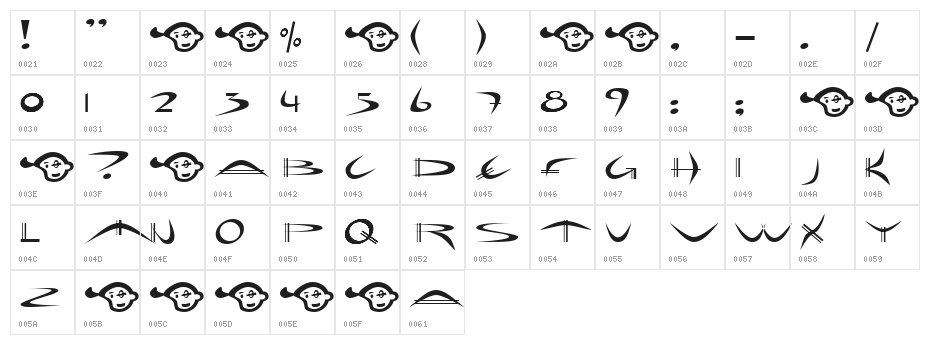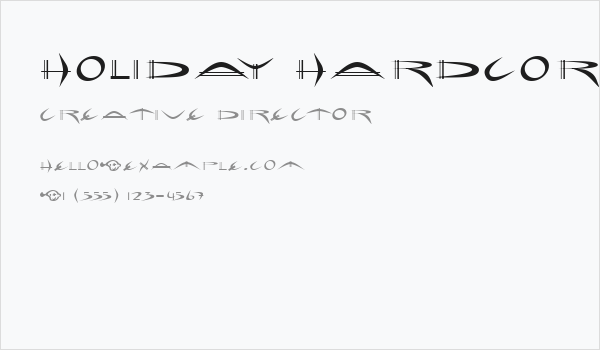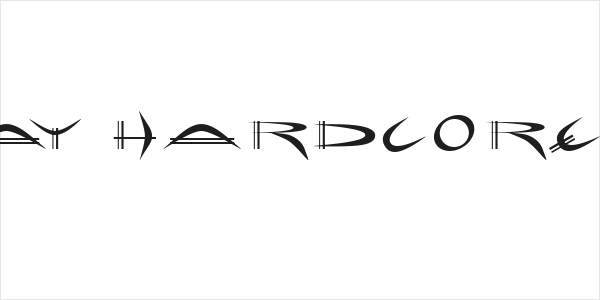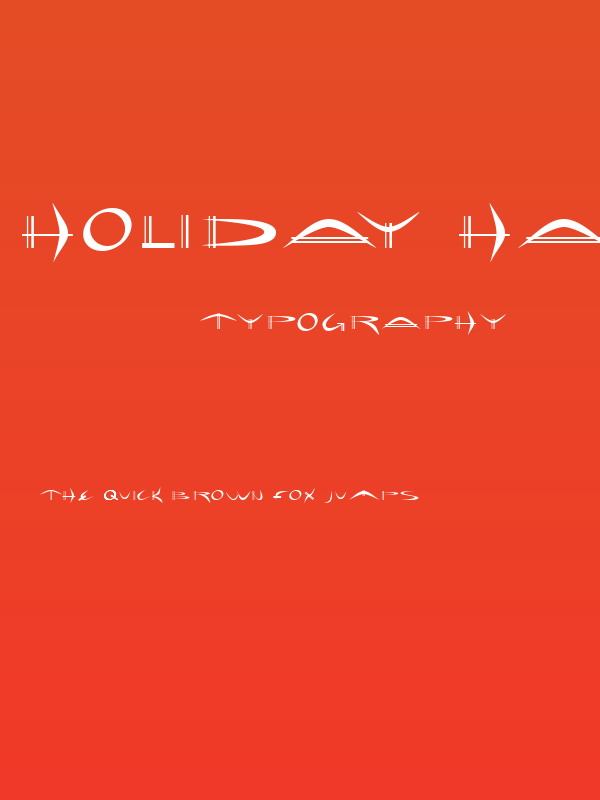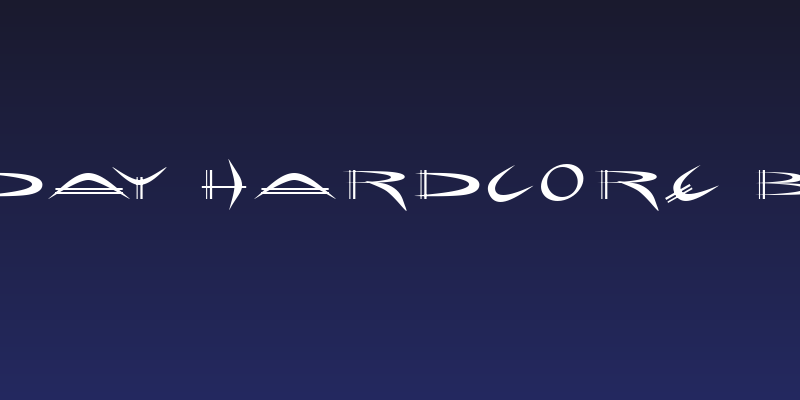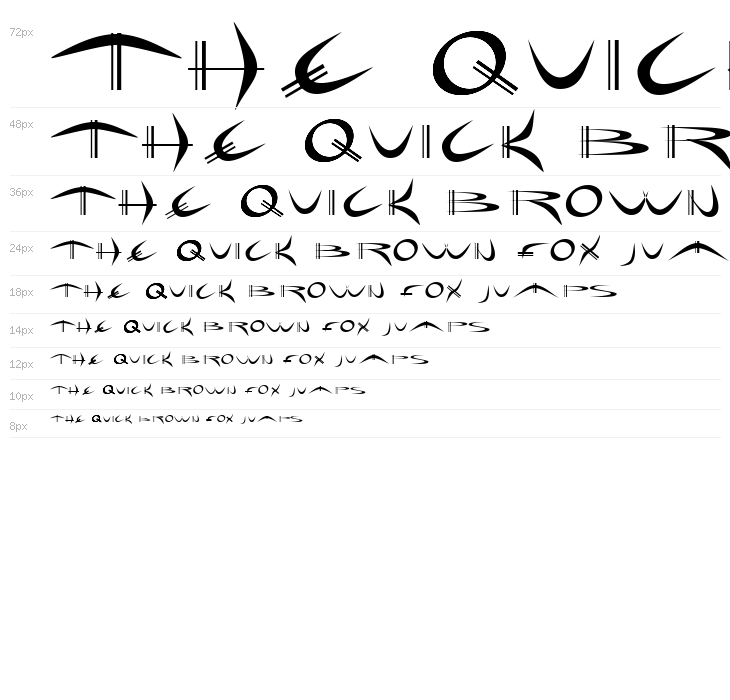
Holiday hardcore Bold Font
Holiday hardcore Bold Description
This font features a bold and dynamic design with sharp, angular lines and a futuristic aesthetic. The uppercase and lowercase letters exhibit a unique blend of geometric shapes and elongated strokes, creating a sense of movement and energy. The numerals follow a similar style, with distinctive curves and angles that enhance the overall modern look. Special characters are creatively designed, adding a playful yet edgy touch to the font. The combination of thick and thin strokes gives it a high contrast, making it stand out in any design project.
| Proposed Projects | Ideal for sci-fi themed designs, video game titles, posters, and branding that requires a modern and edgy look. |